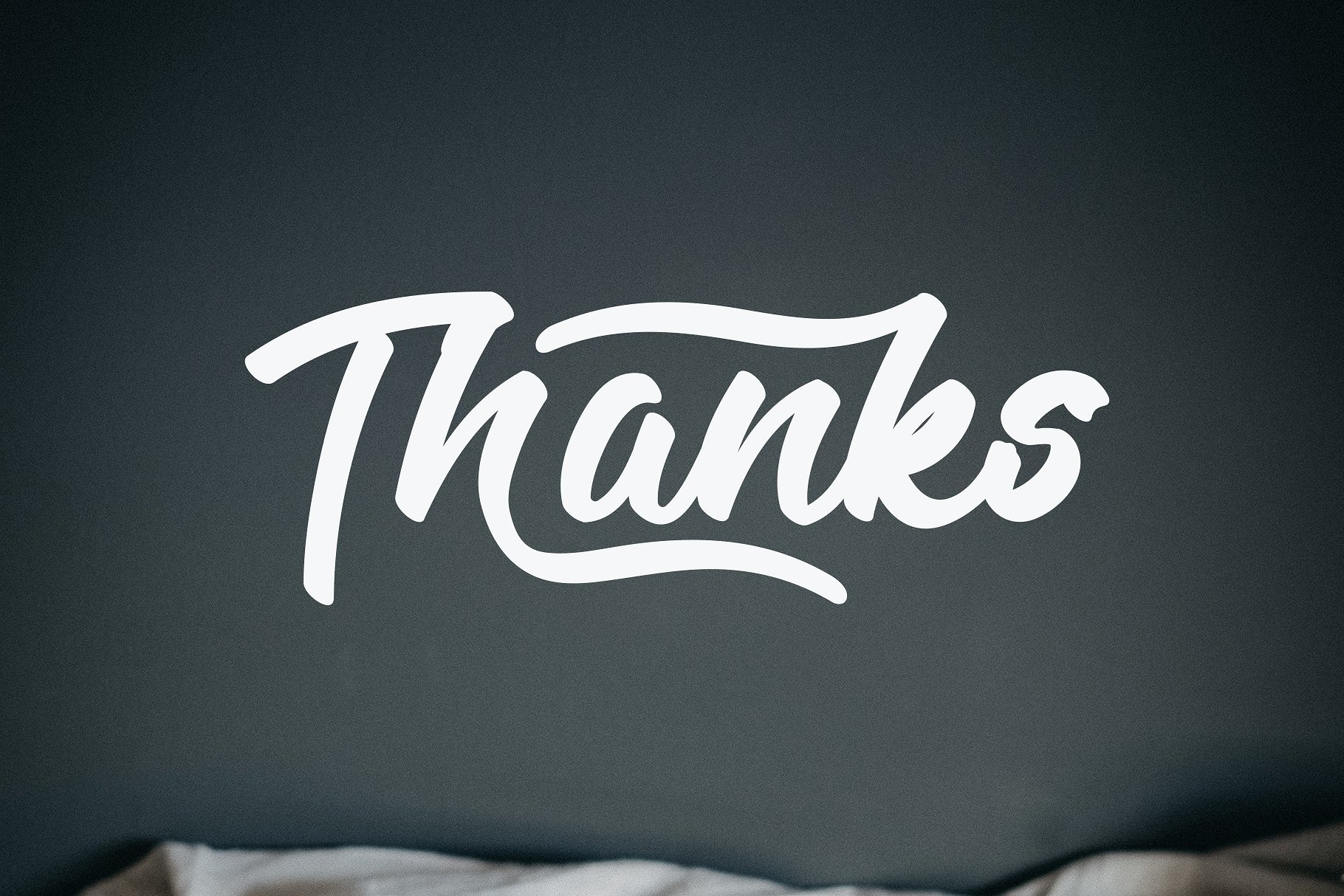
Legilature Script Font
A clean calligraphy font with bonus. Introducing Legilature Font. Legilature – a Modern Calligraphy Font is a simple and modern calligraphy style, this font is great for your next creative projects such as quotes, album cover, business card, and many other design projects.